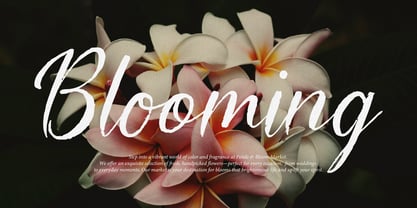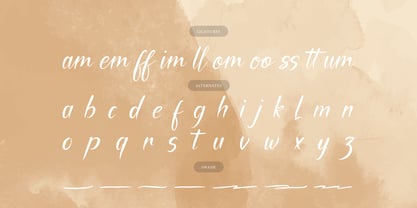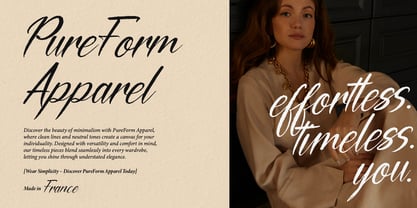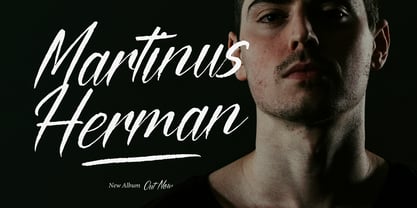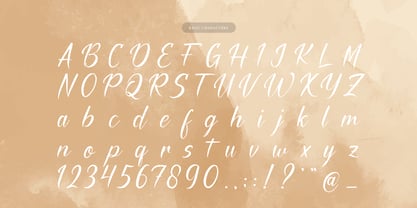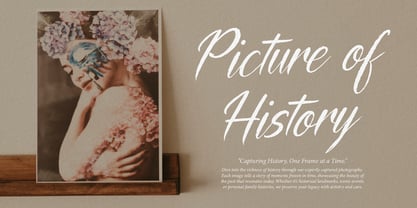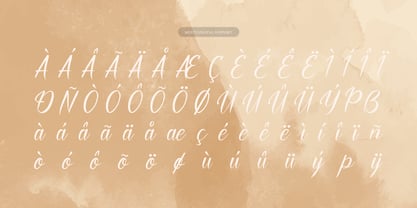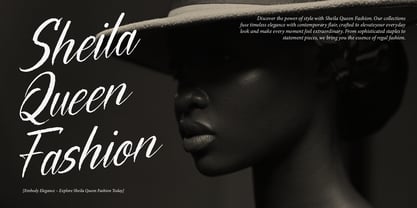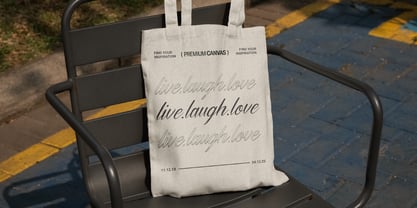
Yonella
par Tini Fitriani
La famille de polices Yonella a été conçue par et publiée par Tini Fitriani. Yonella contient 2 styles et options de package familial.
Yonella | Handwritten Solid Script, from Gracetypestudio, suitable for any projects such as: logos, branding projects, homeware designs, product packaging, mugs, quotes, posters, shopping bags, t-shirts, book covers, name card, invitation cards, greeting cards, label, photography, watermark, special events, and all your other lovely projects that need a Handwritten Solid Script taste.
• Regular and Italic
• Standard glyphs
• Alternate and Ligature
• Fonts include multilingual support